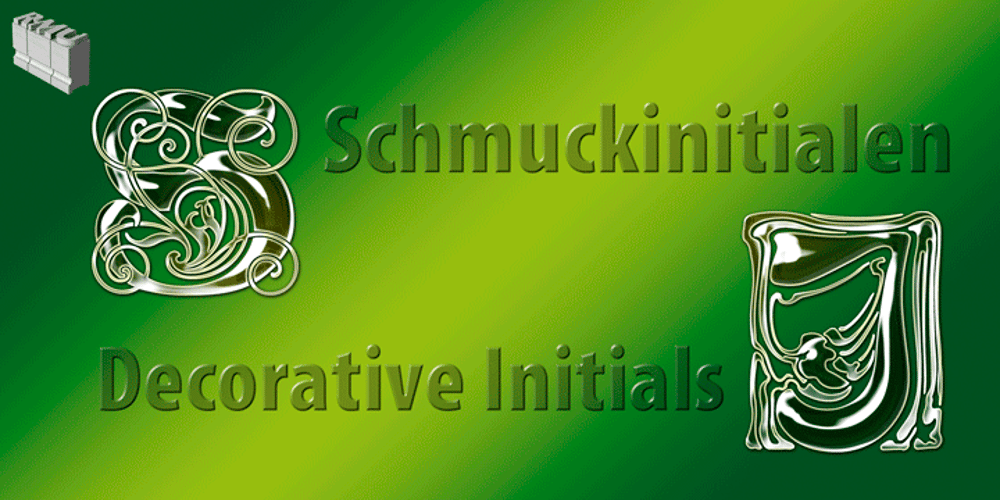
Schmuckinitialen Font Family was designed by Ralph M. Unger and published by RMU. Schmuckinitialen contains 1 styles and family package options. Two fonts entirely of decorative initials of which the uppercase basic letters of RMU Initials One are occupied by Walthari initials, the lowercase ones by Eckmann initials, both released first by Rudhard, ’92sche Gie, ‘dferei, Offenbach, Germany, about 1900. RMU Initials Two consists of Jubilaeumsinitialen in the uppercases and Augsburger Initialen in the lowercases.